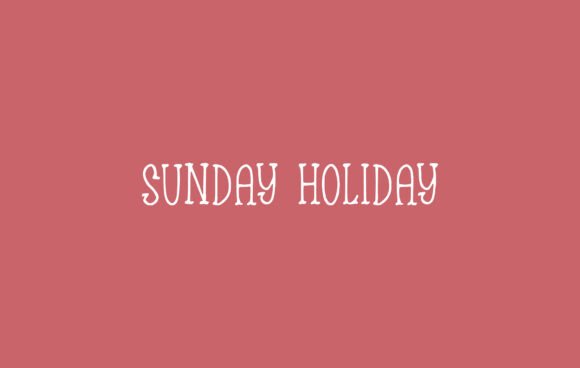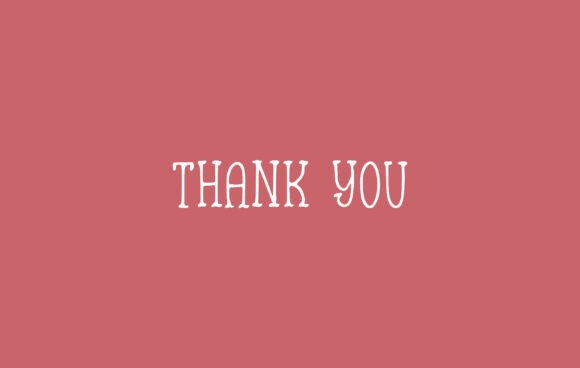
Unlocking the Magic of Handwritten Texts
Have you ever been working on a design project, pouring your heart and soul into it, and then suddenly, the perfect font strikes a chord? That’s exactly what happened when we stumbled upon the enchanting Bobtail Snipe Font. Its authentic handwritten charm has the power to elevate your creative ideas and leave a lasting impression on your audience.
Bobtail Snipe Font is more than just a stylish addition to your designs – it’s a versatile tool that can add a touch of romance and elegance to any project. Whether you’re working on magazine headlines, social media graphics, branding materials, or wedding invitations, this font is sure to be a valuable asset in your design toolkit.
Key Features of Bobtail Snipe Font
- Font Family: Bobtail Snipe Font is a unique display font that offers a mix of modern and vintage elements.
- Font Size: Designed to work well in a range of sizes, from 12pt to 48pt, making it suitable for various design applications.
- Resolution: Optimized for use at 300 DPI (dots per inch) and above, ensuring crisp and clear display on high-resolution screens.
- Unique Characteristics: The font features an irregular, handwritten feel with subtle variations in letterform and spacing, giving it a distinctive and eye-catching appearance.
- Character Set: Includes a comprehensive set of characters, including uppercase and lowercase letters, numerals, punctuation marks, and special characters.
Designer Review: Bobtail Snipe Font
Overall, I’d say that Bobtail Snipe Font has some interesting aspects, but it falls short in other areas. Let’s dive into what works well and what doesn’t.
- Unique Character: Bobtail Snipe Font has a distinct, quirky character that could work well in certain design projects.
- Legibility: The font is generally easy to read, especially in larger font sizes.
- Expressive Nature: The font’s irregularities can add a touch of personality to text, making it suitable for creative projects.
- Limited Versatility: The font’s unconventional design may not be suitable for all types of projects, such as formal documents or news headlines.
- Difficulty in Pairing: Bobtail Snipe Font can be challenging to pair with other fonts, as its unique characteristics may clash with more traditional font styles.
- Smaller Font Sizes: At smaller font sizes, the font’s irregularities can become distracting and difficult to read.
Bobtail Snipe Font is an interesting addition to any design library, but it’s not a one-size-fits-all solution. It’s best suited for projects where a unique, expressive font is needed. However, its limitations may make it less appealing for more traditional or formal designs.
The Bobtail Snipe Font is ideal for creative projects, such as:
• Branding and marketing materials
• Social media graphics
• Print materials, such as business cards or brochures
• Digital presentations and documents
Alternatives to Bobtail Snipe Font
1. Alex Brush Font
A beautiful, elegant script font ideal for wedding invitations, greeting cards, and other formal events. It has a similar feel to Bobtail Snipe Font but with more refined and sophisticated strokes.
Compared to Bobtail Snipe Font, Alex Brush Font is more polished and less quirky, making it suitable for more formal occasions.
A modern, high-end script font perfect for luxury branding, fashion, and high-end packaging. It has a similar sense of elegance and sophistication as Bobtail Snipe Font but with a more contemporary feel.
Compared to Bobtail Snipe Font, Carolyna Pro Font is more modern and versatile, making it suitable for a wide range of applications.